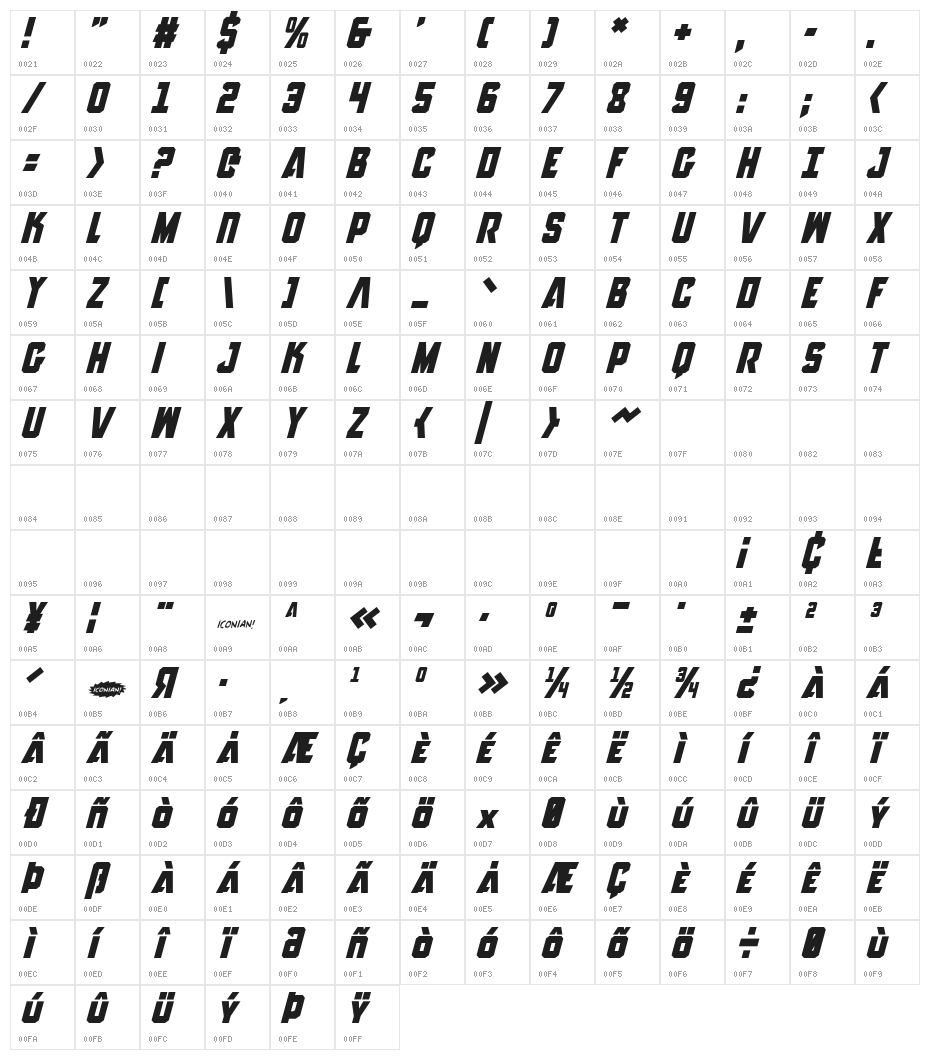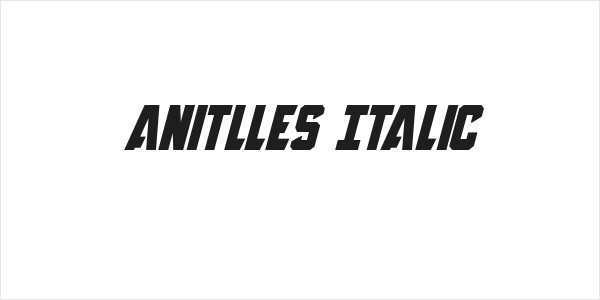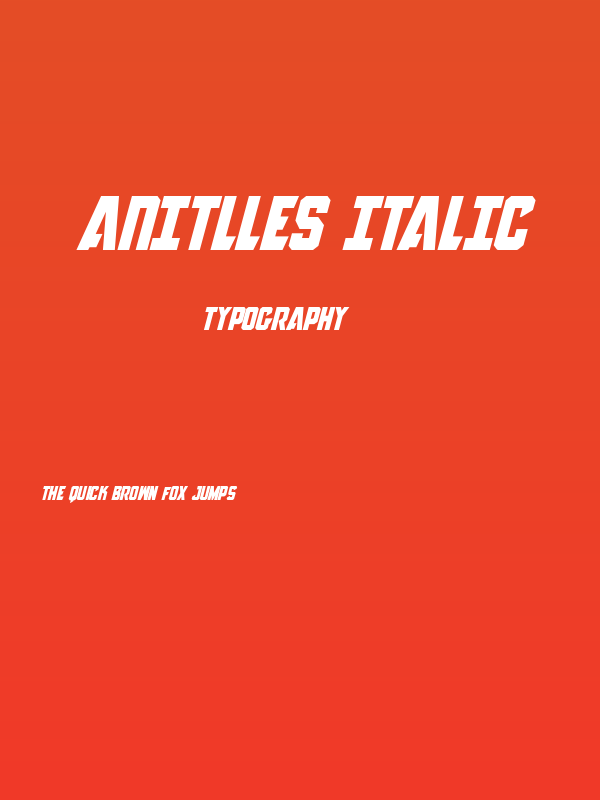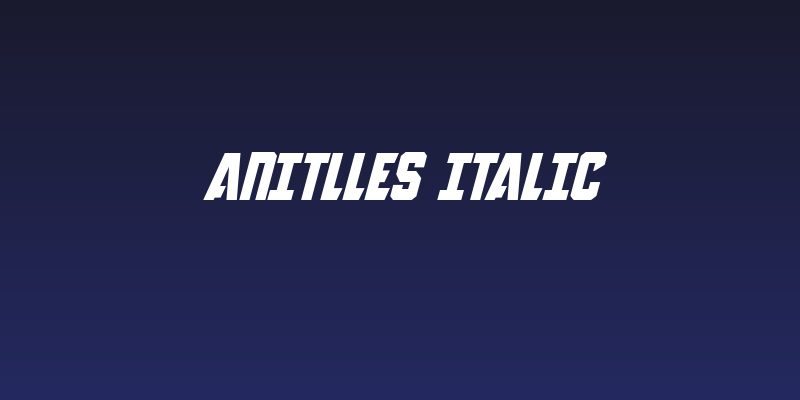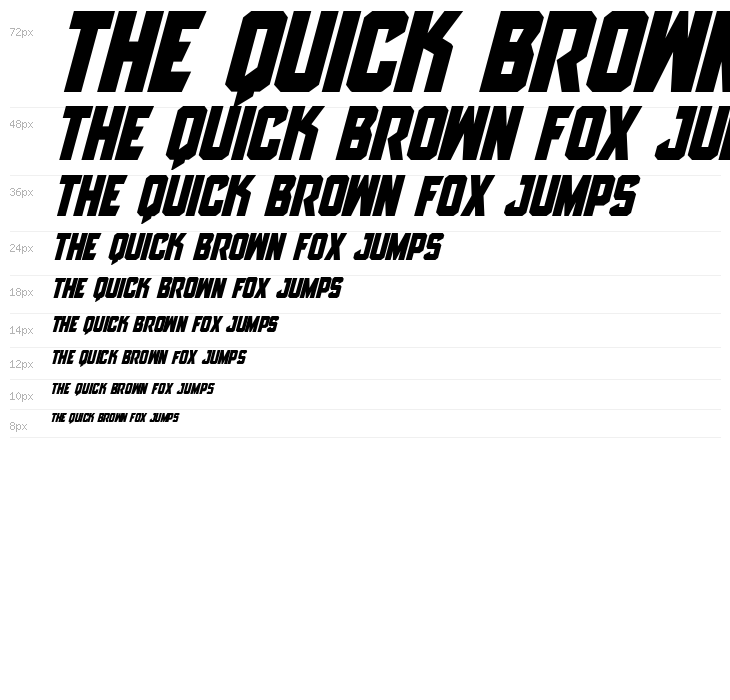
Anitlles Italic Font
Anitlles Italic Description
This font features a bold and dynamic style with a strong italic slant, giving it a sense of motion and energy. The characters are thick and angular, with sharp edges and a geometric structure that conveys a modern and assertive appearance. The uppercase and lowercase letters maintain a consistent weight, while the numerals and special characters are designed to match the boldness of the alphabet. This font's design is ideal for making a strong visual impact, with its high contrast and tight character spacing adding to its striking presence.